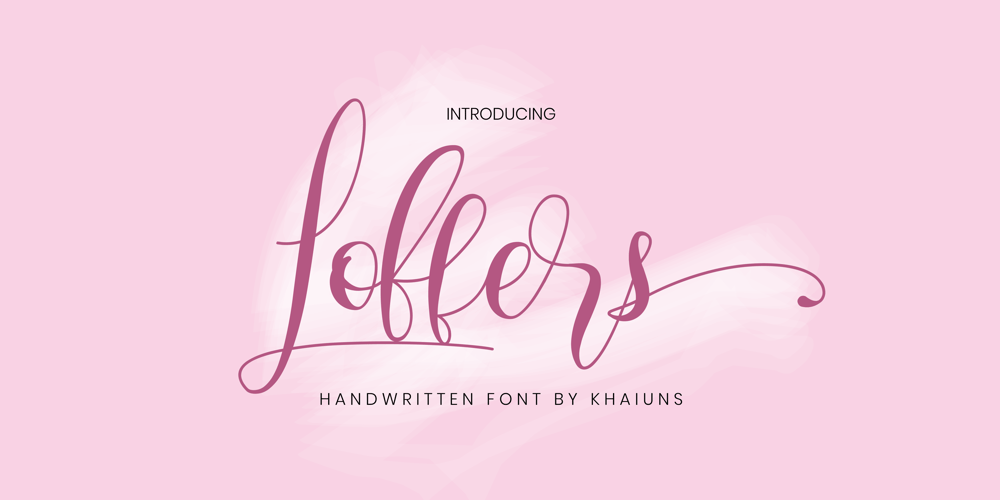
Loffers
Loffers font
Loffers Font Family was designed by Khair Unnas and published by Khaiuns. Loffers contains 1 styles and family package options. Thanks for checking out Loffers Script! A fabulously fun yet elegant script font with tons of energy, allowing you to create beautiful hand-made typography in an instant.Loffers Script is a beautiful chic script that is suitable for branding, wedding invitations, and other romantic projectsIn order to use the beautiful swashes, you need a program that supports OpenType features such as Adobe Illustrator CS, Adobe Photoshop CC, Adobe Indesign and Corel Draw.Thanks for use this font ~ Khaiuns